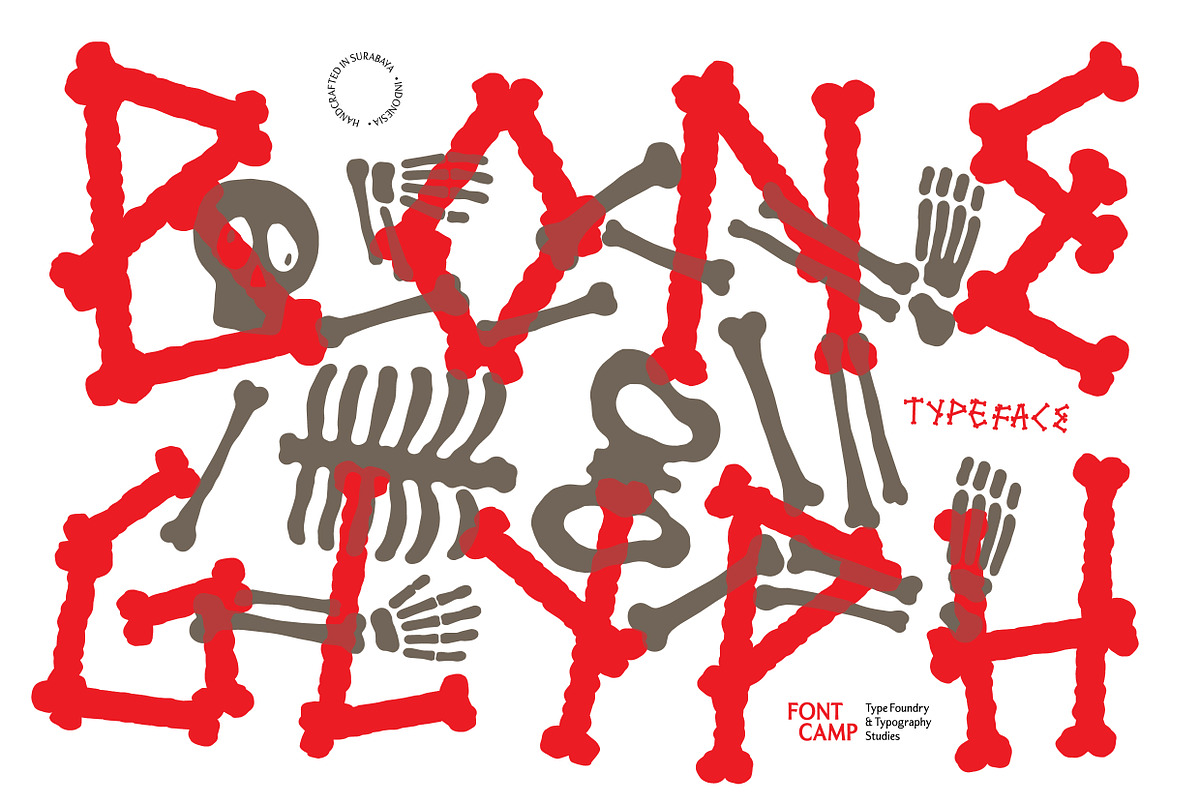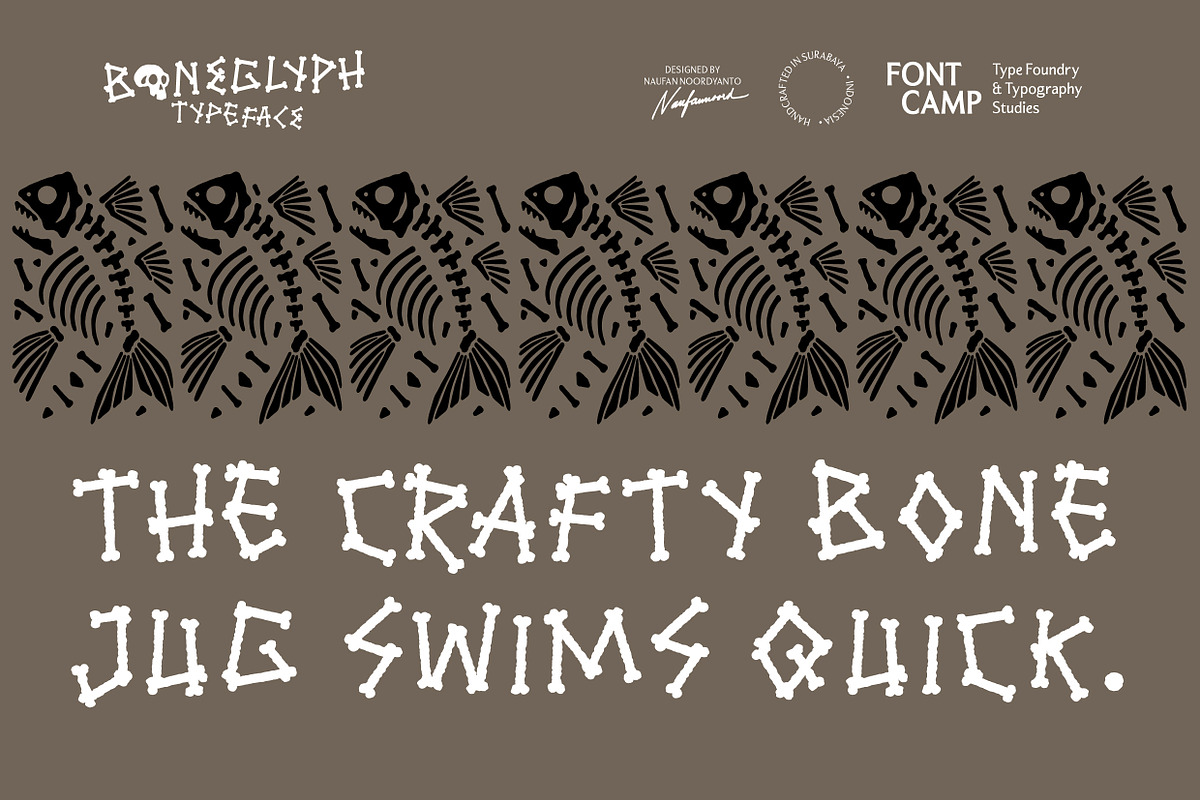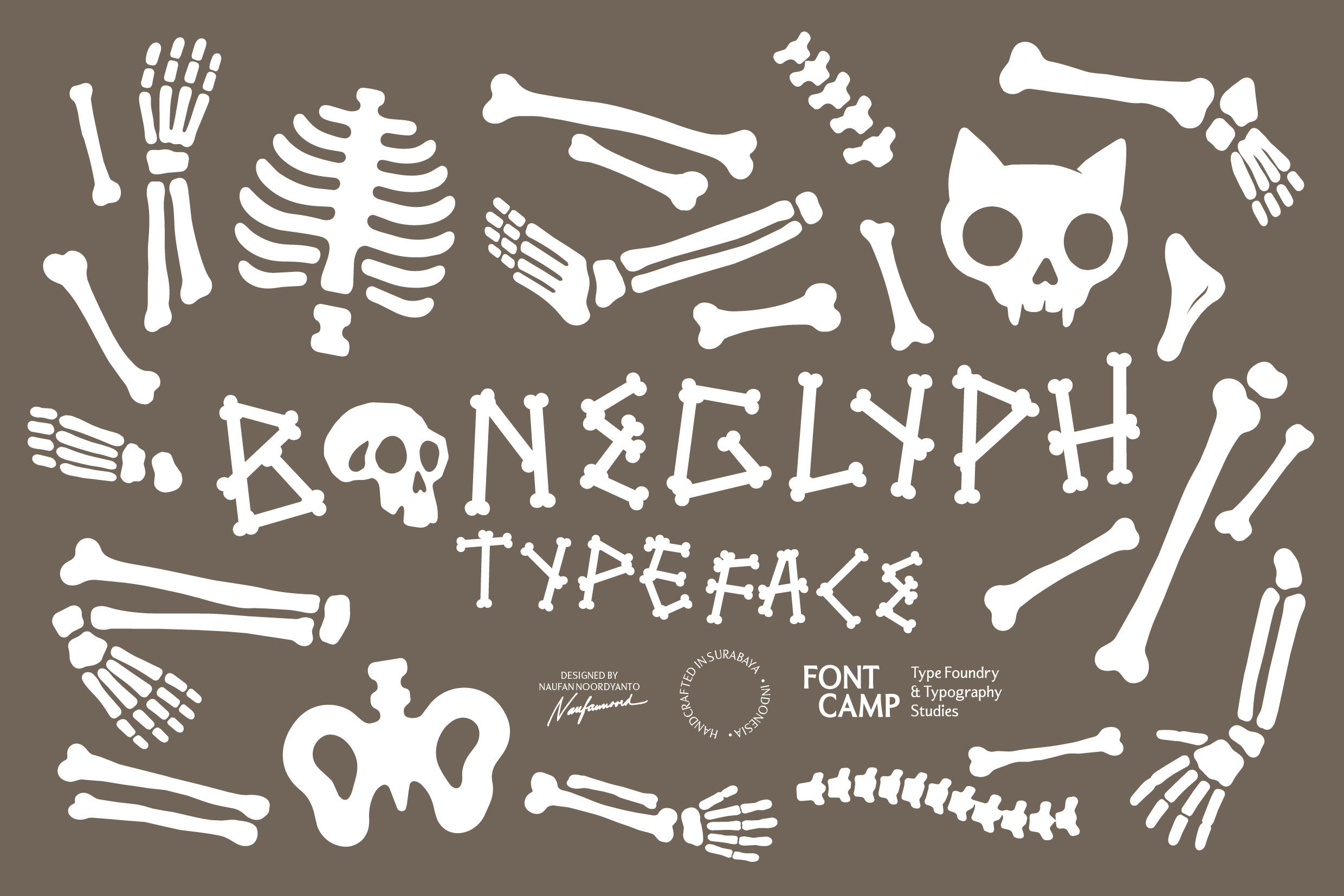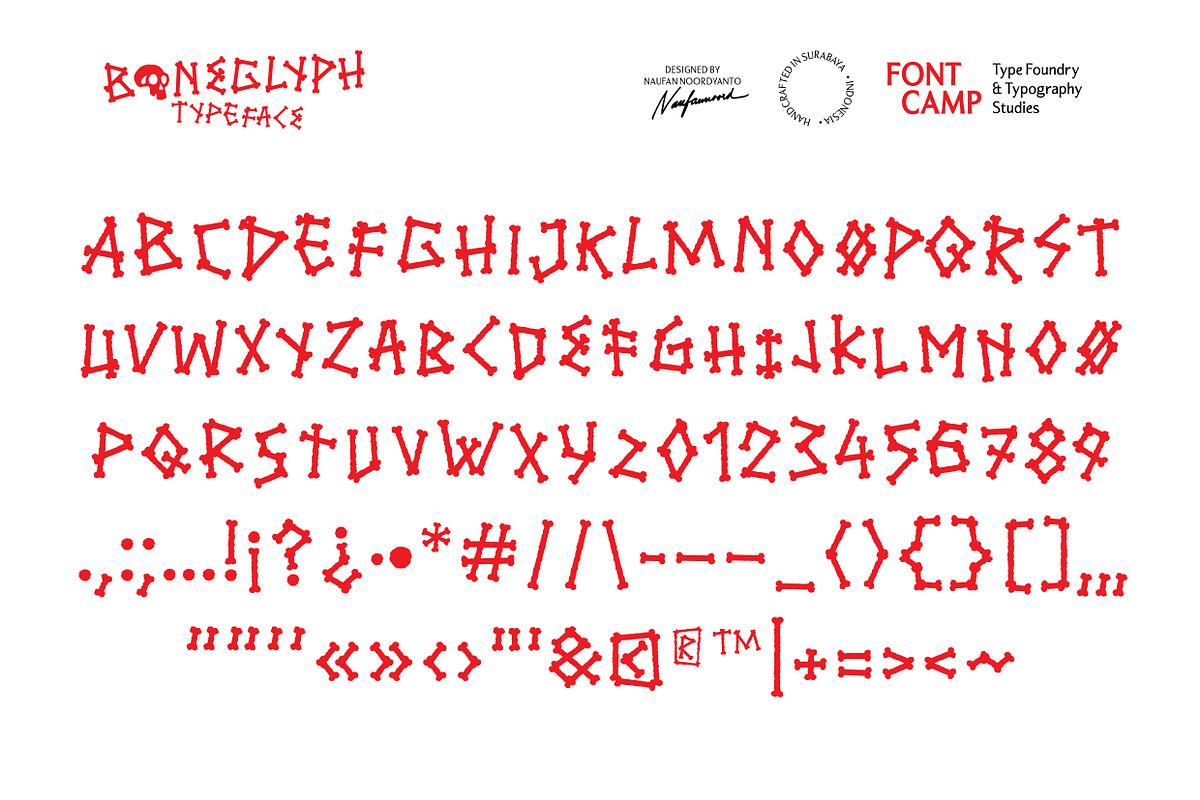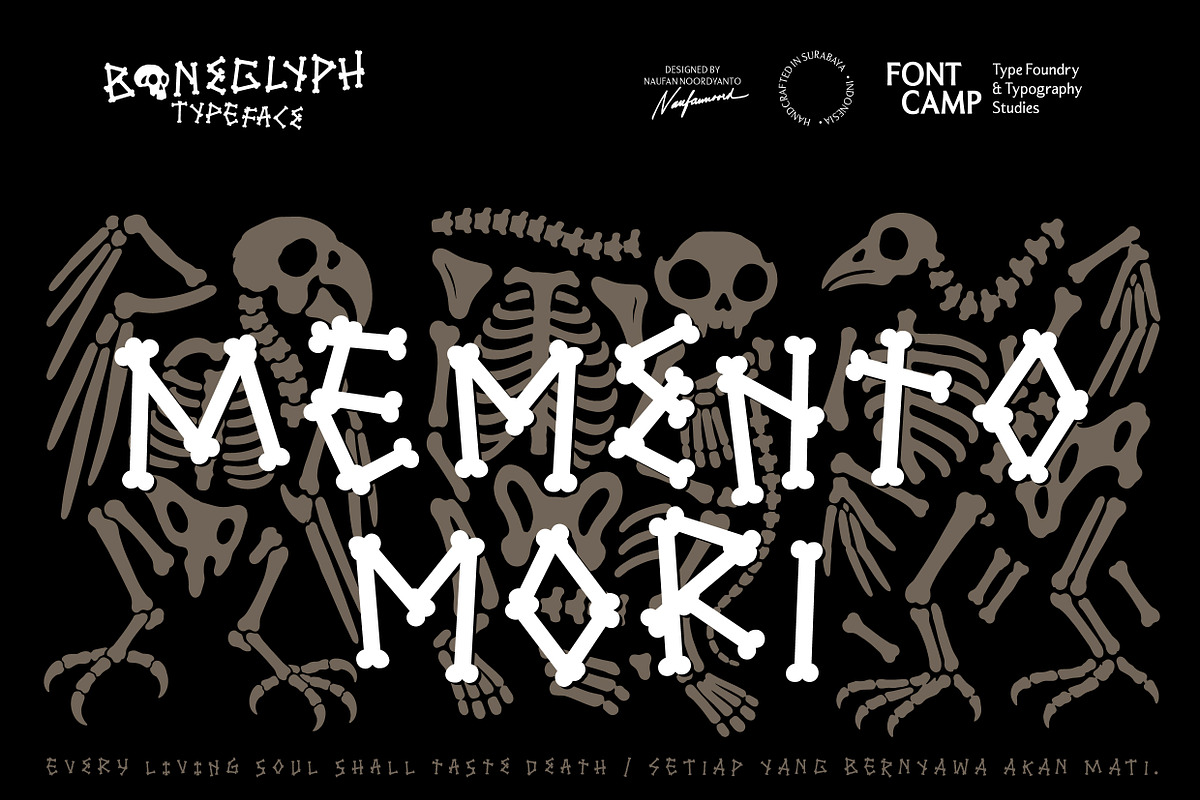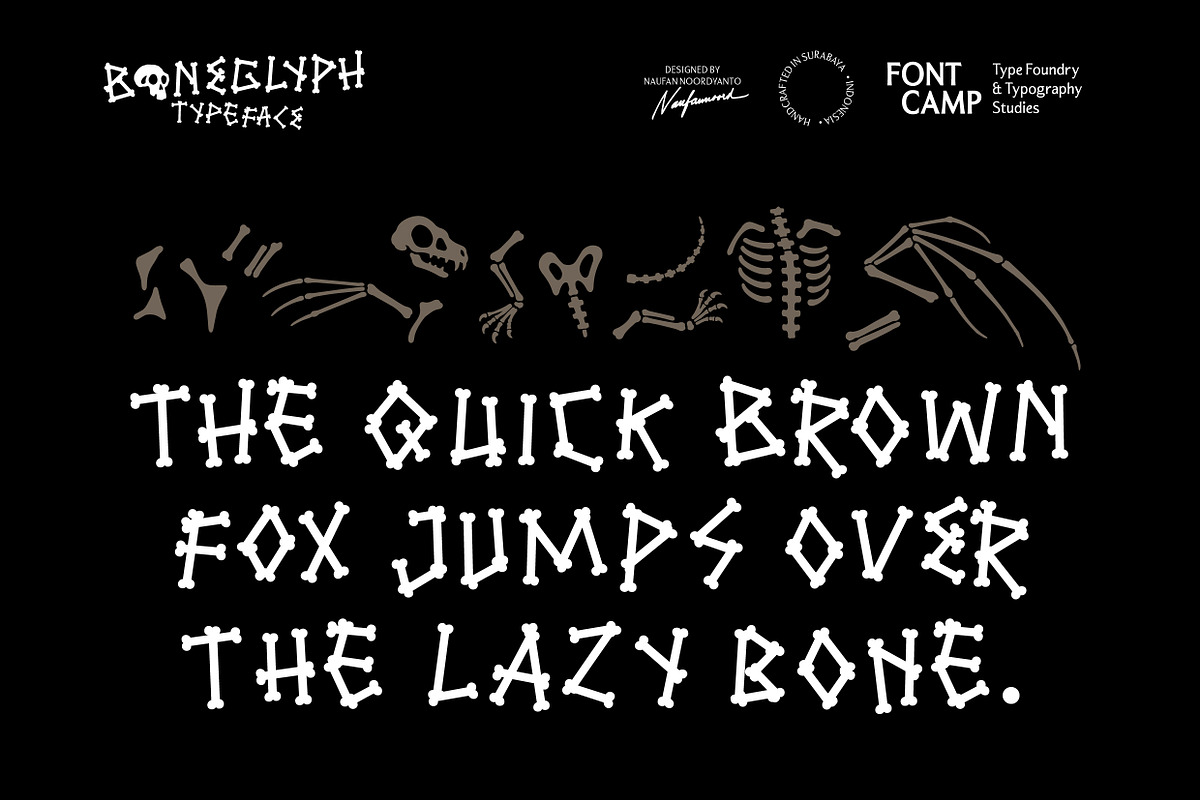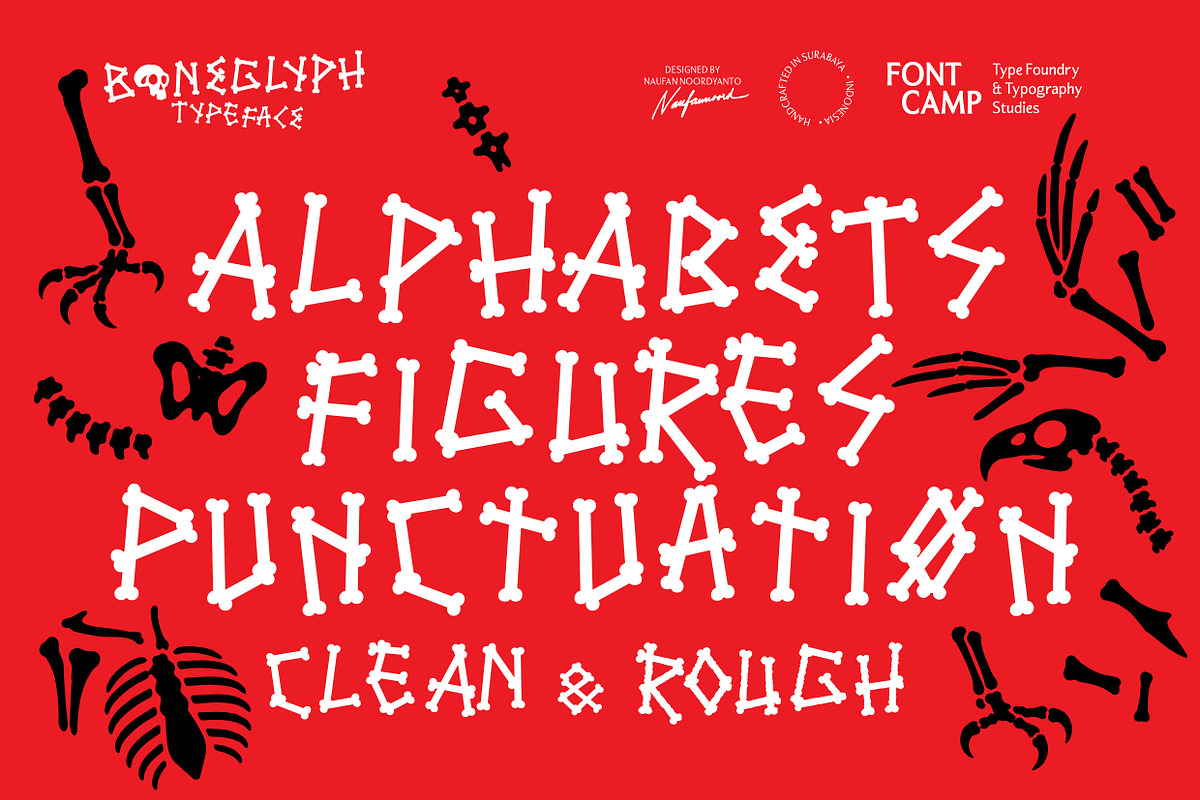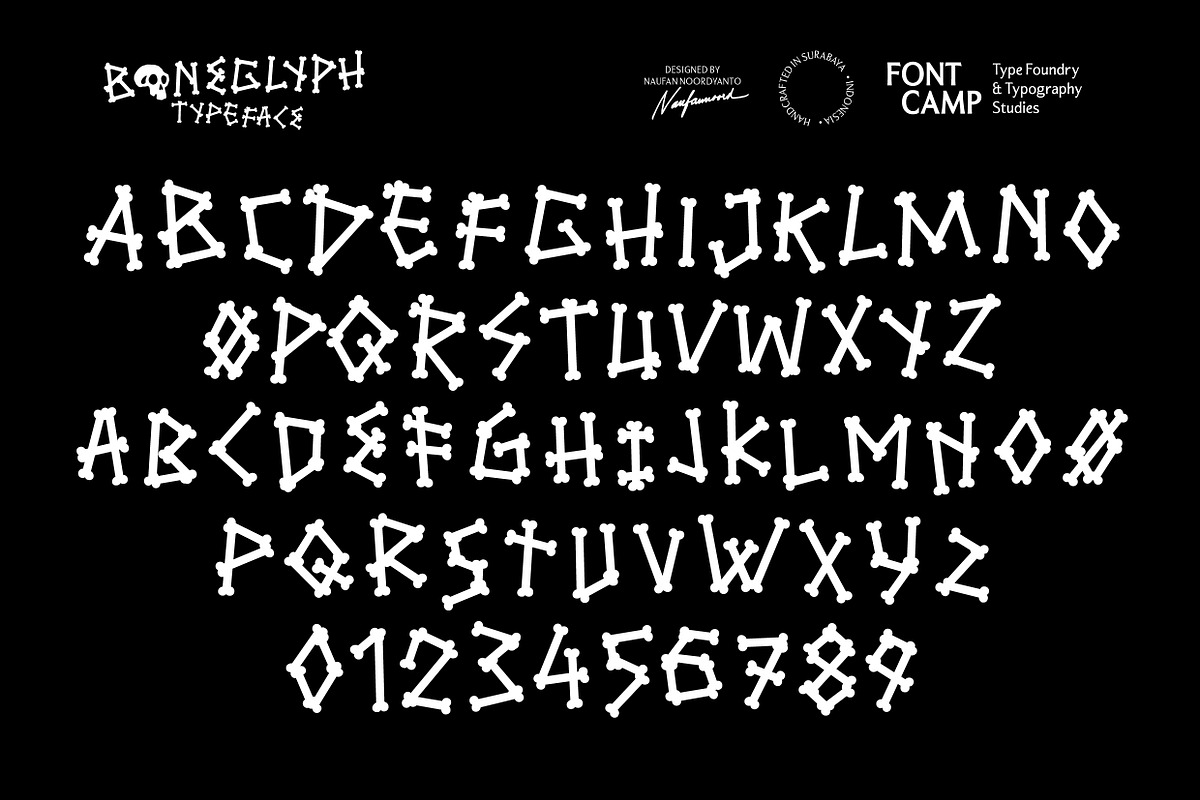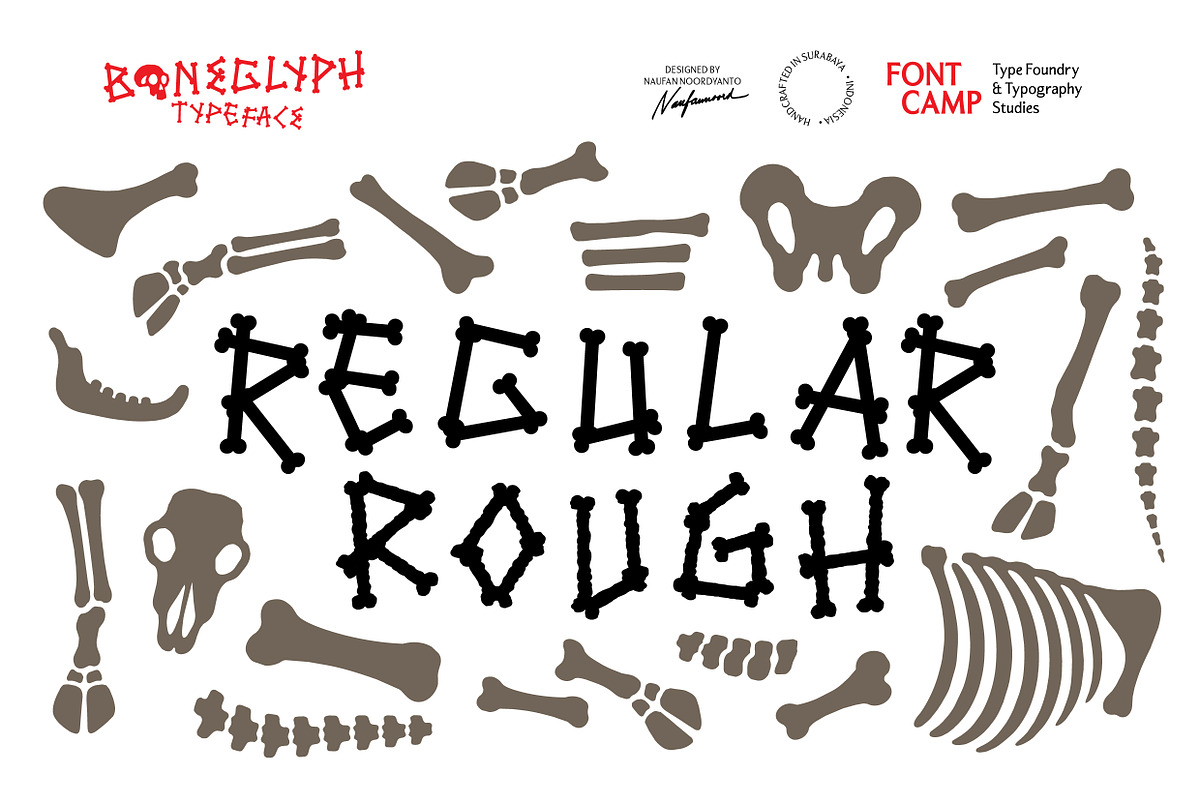
Boneglyph Font
Introducing a "BONEGLYPH" Font.
Boneglyph is an experimental display typeface defined by its unique anatomical characteristics and structural skeletal forms. Its most prominent feature is the fun integration of bone and joint structures into each character, giving the text a primitive, adventurous, and artistic feeling that mimics handcrafted artifacts rather than traditional horror tropes. The letterforms combine organic curves with sharp, structural edges, allowing for creative, impactful text layouts that maintain a distinct, pop, or museum-worthy aesthetic.
Engineered with 112 meticulously crafted glyphs, including alphabet, figures, and basic punctuation across two distinct styles: Clean (clean stroke version) and Rough (rough stroke version).
Designer: Naufan Noordyanto; Kerning: Naufan Noordyanto; Manufacturer: Fontcamp Type Foundry and Typography Studies. We craft and distribute fonts and custom typography. We foster typographic appreciation through design exhibitions, publications, and education.